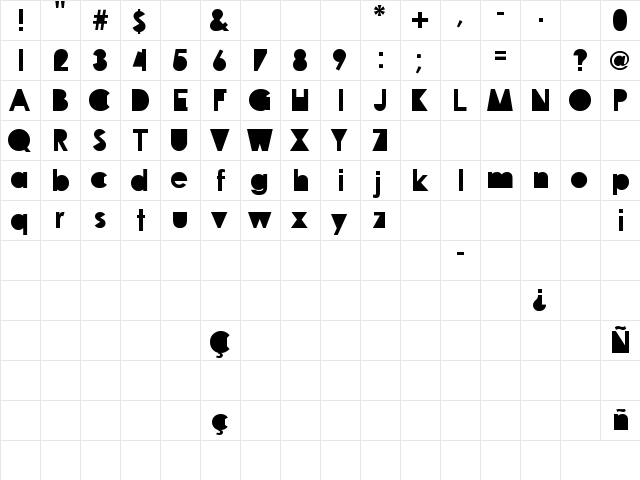
travellers Regular
Design Context for travellers Typeface
travellers is a composed and adaptable typeface that performs quietly and consistently across a wide range of design contexts.